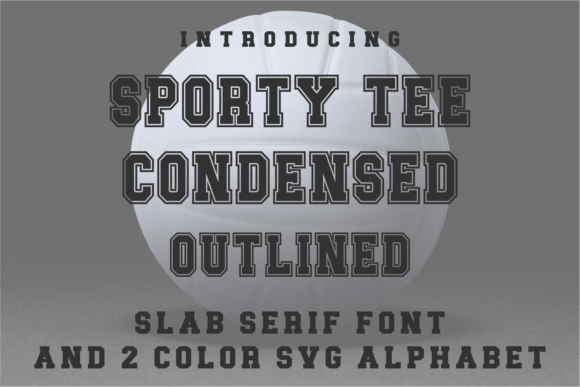
Looking for the perfect font to elevate your college-inspired designs? Look no further than Sporty Tee Condensed Outlined Font! This serif font, created by SVG Cuttables, is specifically designed to give your projects a powerful and vibrant touch.
Sporty Tee Condensed Outlined Font is not your average font. With its tall and stylish design, it captures the essence of sports and athleticism. But what sets it apart is the unique outline that adds an extra layer of depth and visual appeal. Picture your college team's logo, movie posters, book covers, or even game titles standing out from the crowd with this font.
But that's not all - Sporty Tee Condensed Outlined Font also comes with a two-color SVG alphabet. Imagine the possibilities of adding a dynamic and eye-catching element to your designs. Whether you're working on sports-themed designs, team jerseys, league documents, documentaries, or even headlines, this font has got you covered.
When it comes to versatility, Sporty Tee Condensed Outlined Font ticks all the boxes. Its bold and powerful appearance makes it suitable for a wide range of projects. The font's strong presence will make your designs command attention and leave a lasting impact on your audience.
But it's not just about aesthetics. Sporty Tee Condensed Outlined Font is strategically crafted to cater specifically to college classes. Its legibility and clarity make it the ideal choice for academic projects, presentations, and documents. Stand out among your peers with a font that not only looks great but also conveys professionalism and expertise.
In summary, Sporty Tee Condensed Outlined Font is the ultimate font for college classes and beyond. Its captivating design, unique outline, and two-color SVG alphabet make it a must-have for any designer or creative individual. Whether you're aiming to create sports-inspired designs, movie posters, logos, or academic materials, this font will take your projects to the next level. Download it now and let your creativity soar!